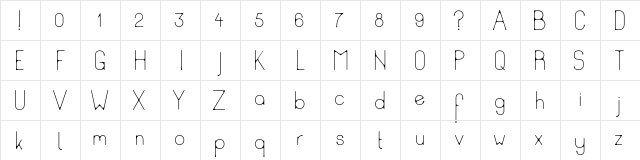
Ud Thin Font Preview
Ud Thin
Ud Thin Font Details
| Style | Thin |
| Foundry | tudy1311 (Tudor Banciu) |
| Designer | tudy1311 |
Design Context for Ud Typeface
Ud is a composed and adaptable typeface that performs quietly and consistently across a wide range of design contexts. The delicate stroke weight brings airiness and refinement to layouts.